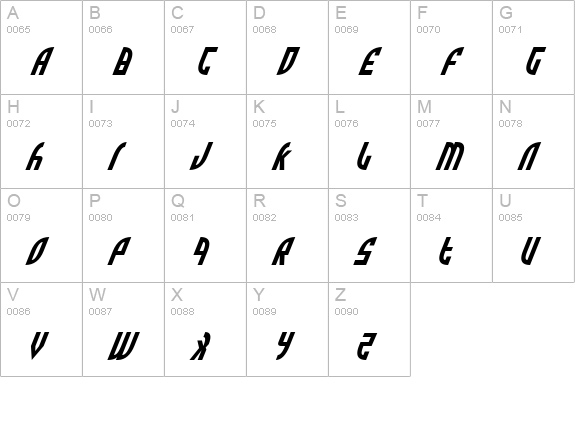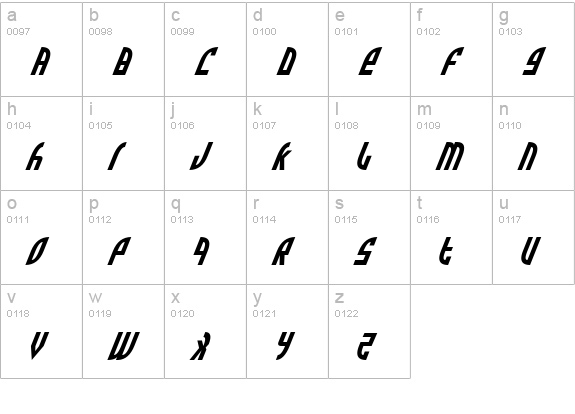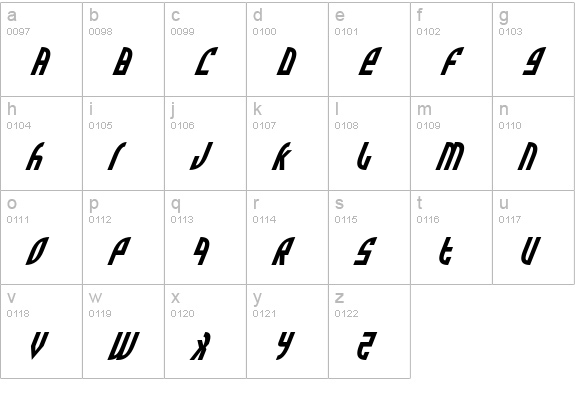
Zone Rider Italic is a distinctive, italic variant in the Zone typeface family \xE2\x80\x94 well suited to design and typography projects.
Zone Rider Italic font is a sleek and modern typeface designed to make a statement. With its bold and italicized characters, this font exudes a sense of confidence and style. Perfect for headlines, logos, and branding projects, Zone Rider Italic font adds a touch of sophistication to any design. And the best part? It's completely free! You can download Zone Rider Italic font at FontsMarket.com without any cost. So go ahead and give your projects that extra edge with this striking and versatile typeface.